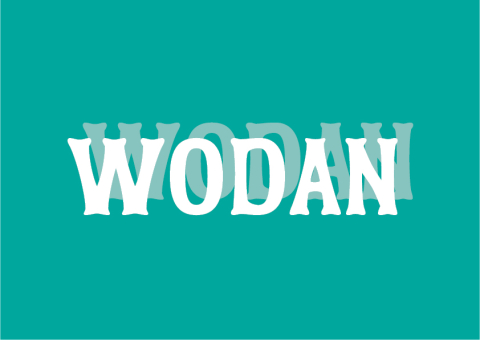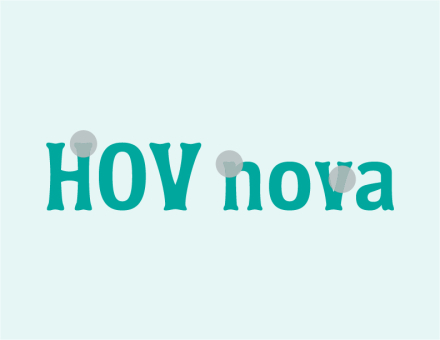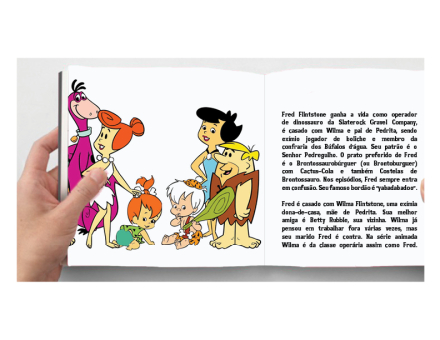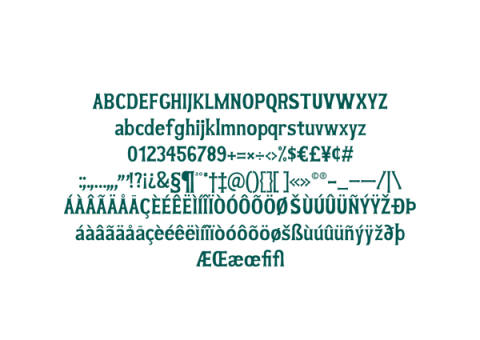
Wodan
Inspired in bones. Due their rounded terminations this font is recommended for children's books for its readability.
Designer: Mariana Madeira
Publisher: Mariana Madeira